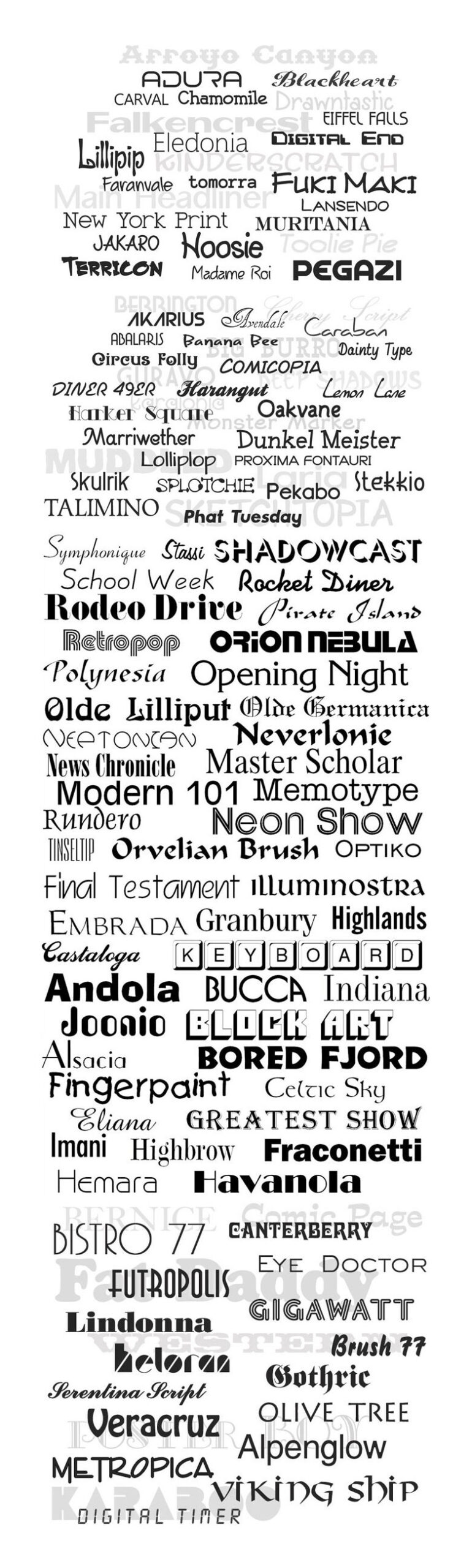
Typefaces are the most elemental resource designers have in their toolbox. They’re a great way to add personality to designs, and really make your projects stand out.
This exclusive deal with 128Bit Technologies is for over 335 unique typeface families. Each family includes a variety of styles ranging from regular and condensed to wide and italic. All fonts are in OpenType format and include the essential international characters for numerous non-English languages.
With hundreds of typefaces to choose from you may never need to buy a font again. Some of our favorites are the classic Muritania, the sci-fi inspired Orion Nebula, the nouveau inspired Olde Lilliput and the expressive Bored Fjord. Take a look at a preview of some of the fantastic fonts included in this great value deal: